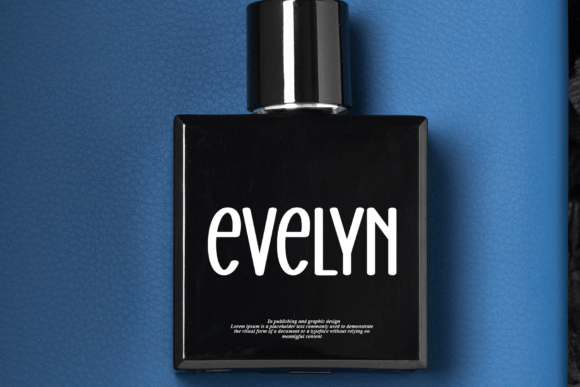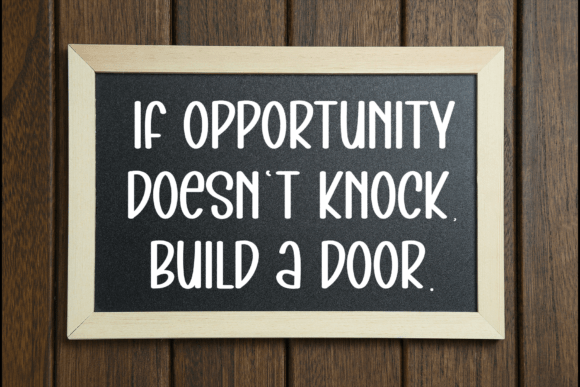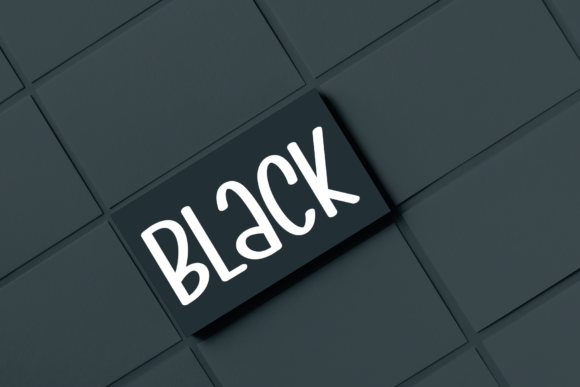
Introduction to Home Midnight Font
Home Midnight is a neat and casual display font that radiates fun and relaxation.
With clean lines and an easygoing vibe, it’s perfect for summer posters, event flyers, and playful branding This cheerful typeface brings a breezy, laid-back feel to any creative project or message.